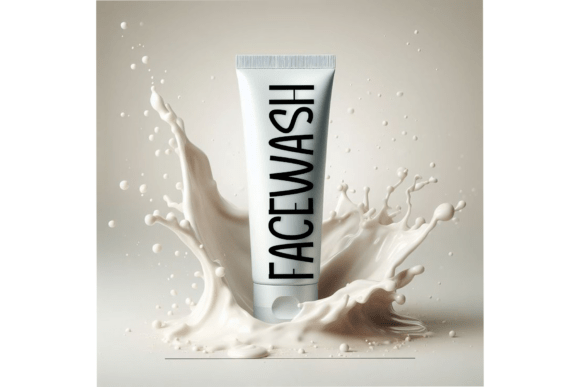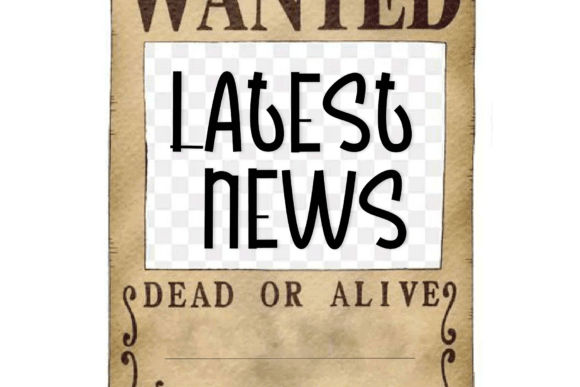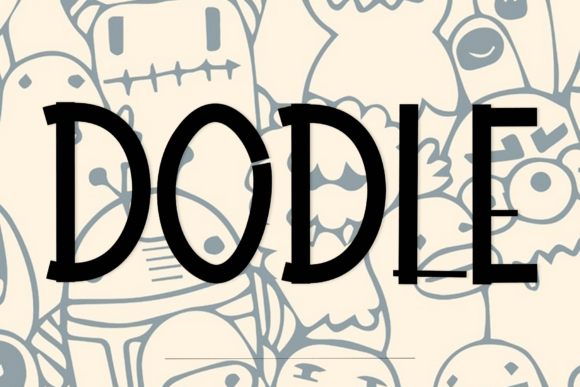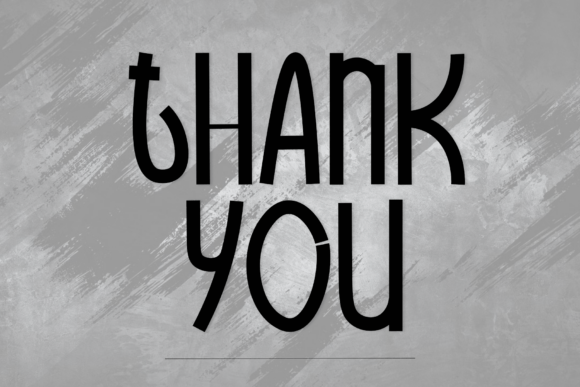
Unleashing the Warmth of Handwritten Charm
As creatives, we’ve all been there – struggling to convey the perfect tone in our designs, searching for that elusive balance between style and substance. For me, it was a simple Instagram post that sparked the idea for this article: a beautifully crafted quote in a handwritten font that perfectly captured the essence of a friend’s heartfelt message.
That’s where Black Falcon Font comes in – a casual, modern script that embodies the warmth and personality of authentic handwriting. Designed to add a personal touch to any design, Black Falcon Font is perfect for quotes, invitations, branding, and social media posts. Its effortless style and versatile character make it a valuable asset for designers looking to add a friendly and approachable feel to their work.
Key Features of Black Falcon Font
- Font Family: Black Falcon Font comes in 5 different font families: Regular, Bold, Italic, Bold Italic, and Outline.
- Unique Characteristics: The Black Falcon Font features a unique blend of modern and vintage elements, with sharp lines, bold shapes, and a touch of elegance, making it perfect for luxury brands, high-end products, and sophisticated designs.
Black Falcon Font Review
Overall, I found the Black Falcon Font to be an interesting addition to any design project. Here are some of its strengths and weaknesses.
✨ The font has a unique, modern design that sets it apart from more traditional fonts.
- ✨ The bold and italic variations add depth and versatility to the font.
- ✨ The font is highly legible, even at smaller font sizes.
⚠️ One of the main drawbacks of the Black Falcon Font is its limited character set.
- ⚠️ It lacks support for certain special characters and languages.
- ⚠️ The font may not be suitable for body text or large blocks of text due to its condensed design.
Overall, the Black Falcon Font is a great choice for titles, headings, and other design elements where a modern, bold look is desired. However, it may not be the best option for projects that require a wide range of characters or languages.
The Black Falcon font is ideal for creating a bold and edgy look. It’s commonly used in:
– Gaming and esports branding
– Cyberpunk and sci-fi themed designs
– Edgy fashion and lifestyle branding
– Bold and eye-catching headlines and titles
To get the most out of the Black Falcon font, experiment with different font sizes, styles, and colors to create a unique and eye-catching look. Combine it with other bold and edgy fonts to create a striking visual effect.